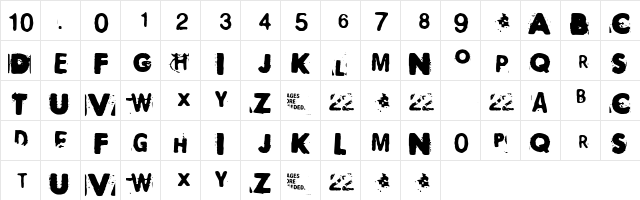
Polaroid 22 Regular
Design Context for Polaroid 22 Typeface
Polaroid 22 is a composed and adaptable typeface that performs quietly and consistently across a wide range of design contexts.